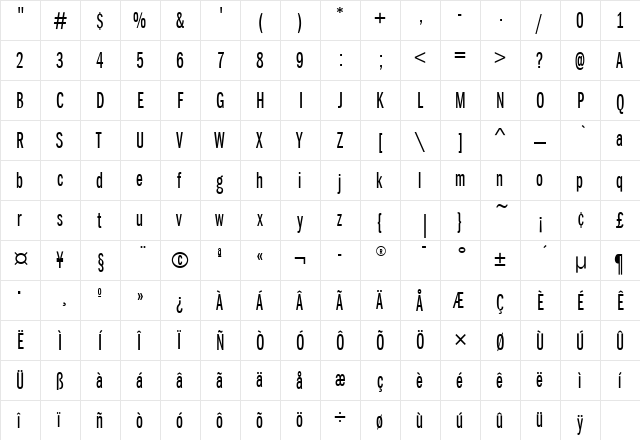
FranklinGotXCmpITC Book
Design Context for FranklinGotXCmpITC Typeface
FranklinGotXCmpITC takes a measured approach to typography — its balanced proportions and neutral character make it a reliable workhorse for both digital and print work.